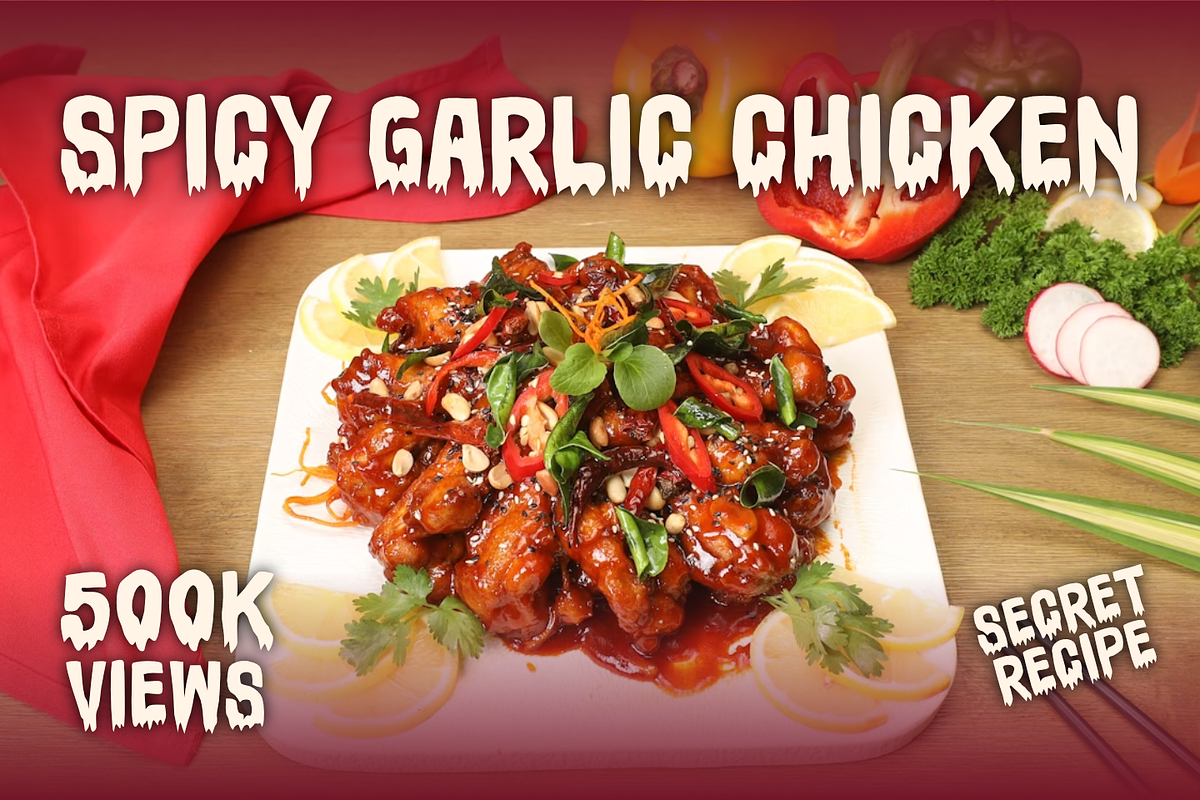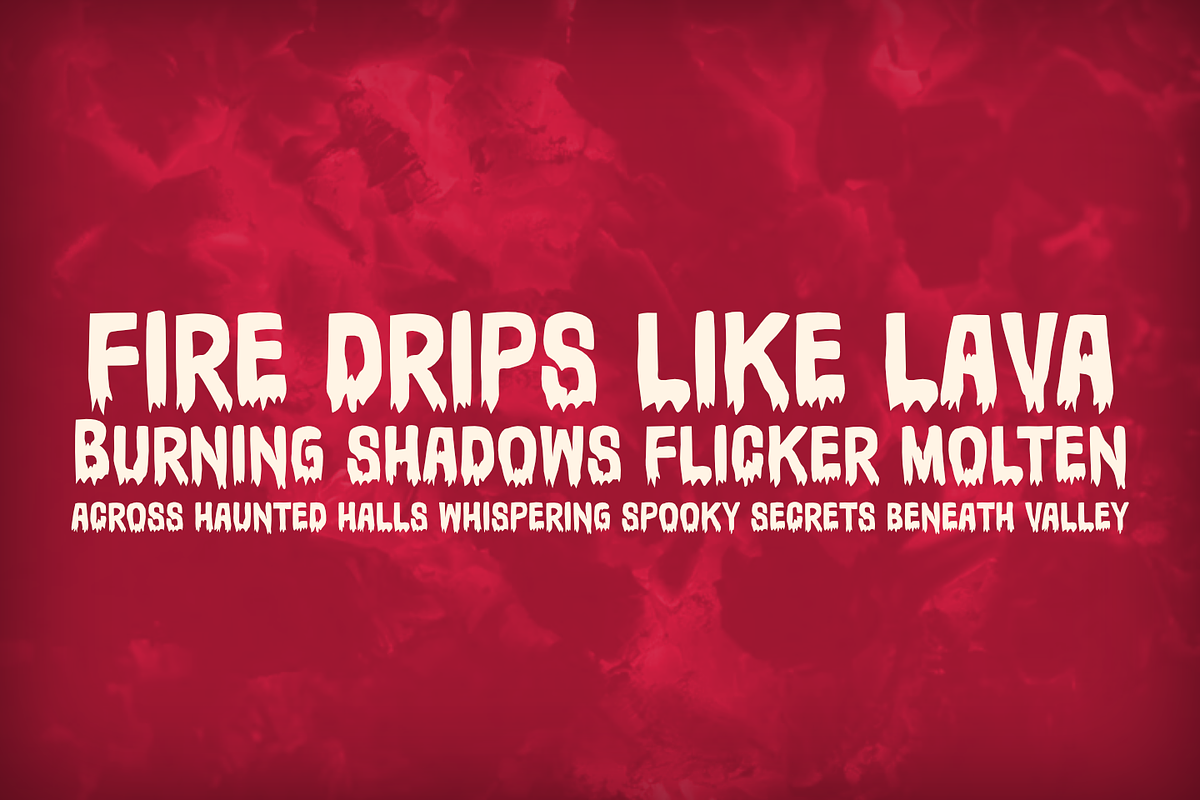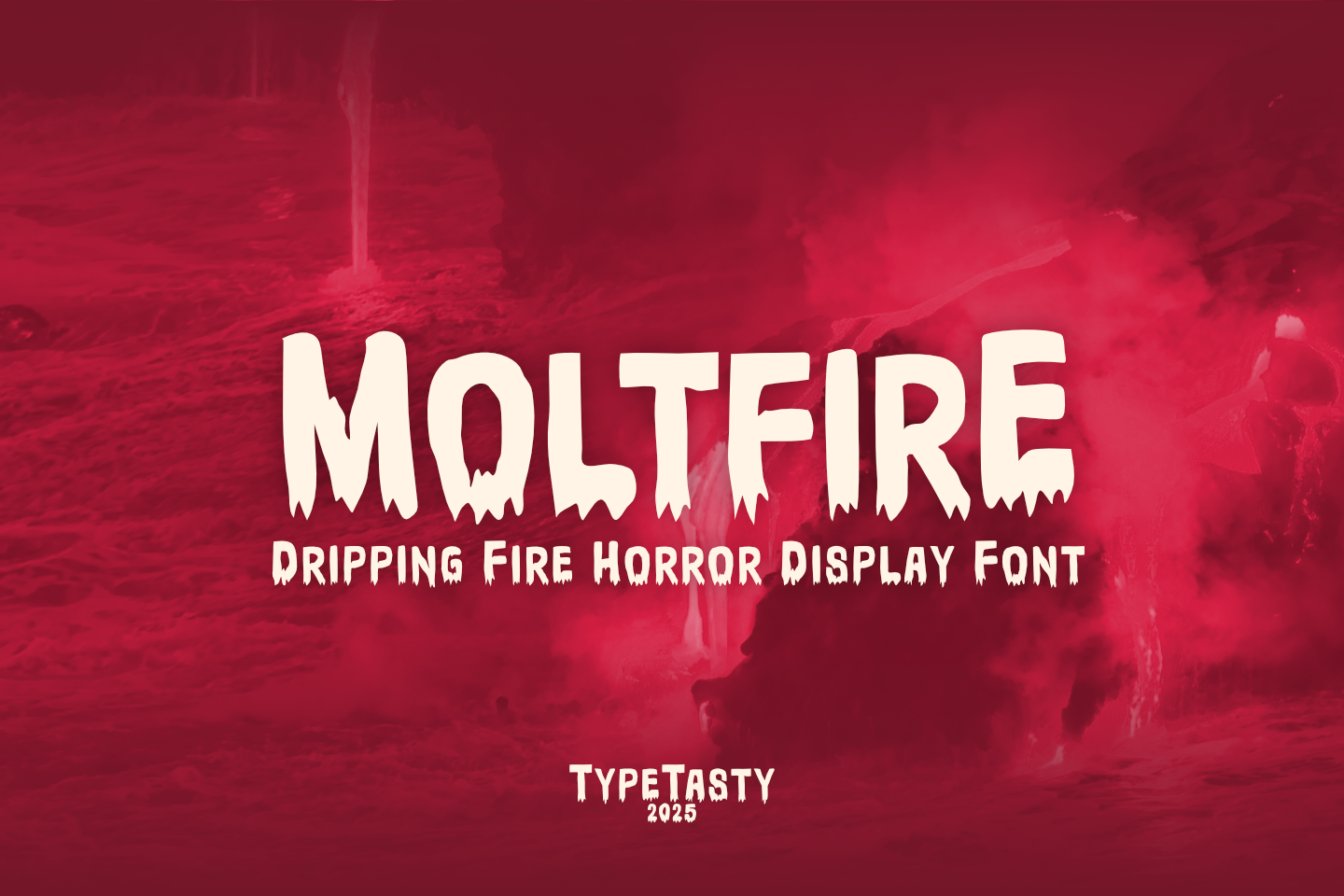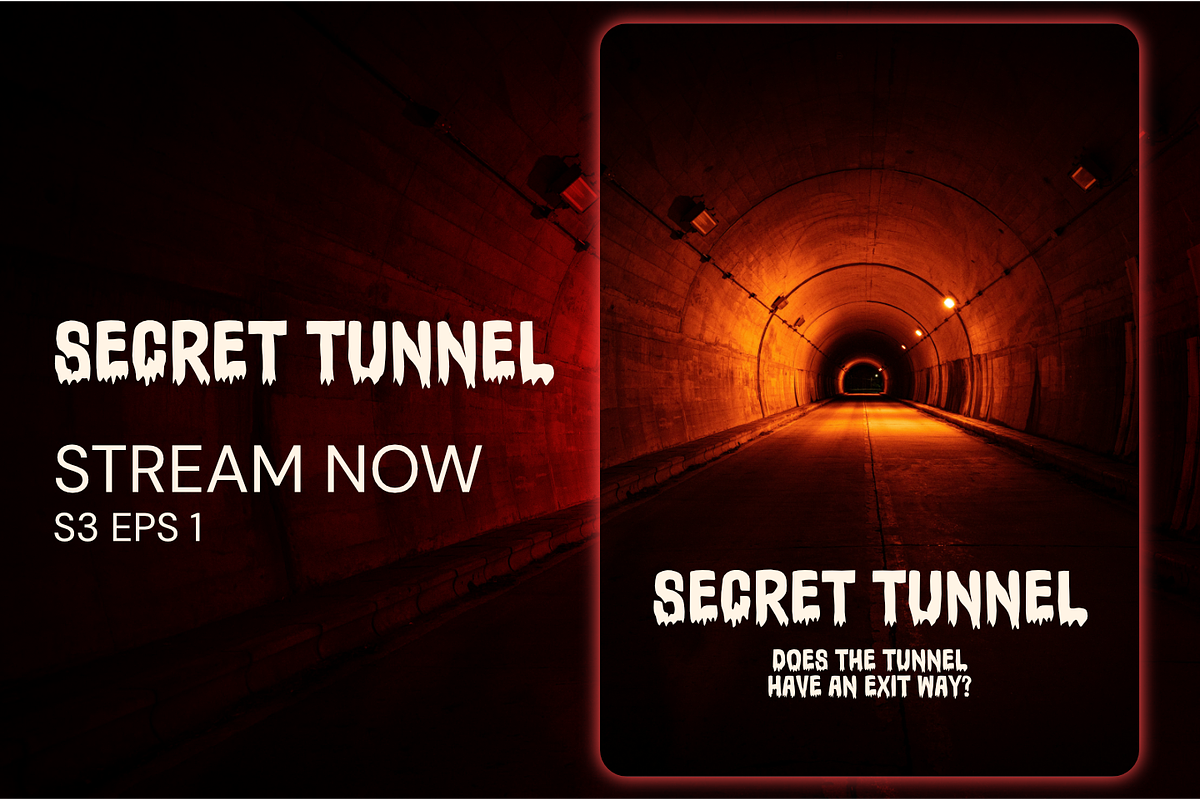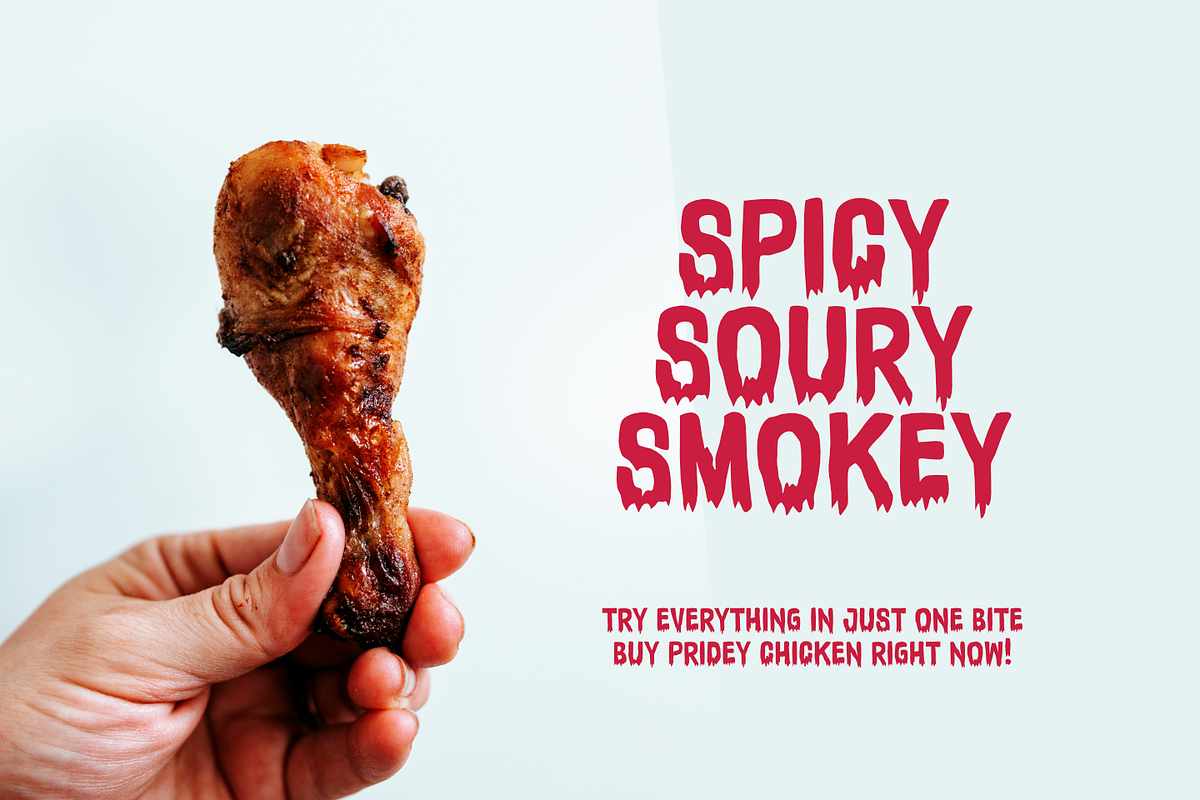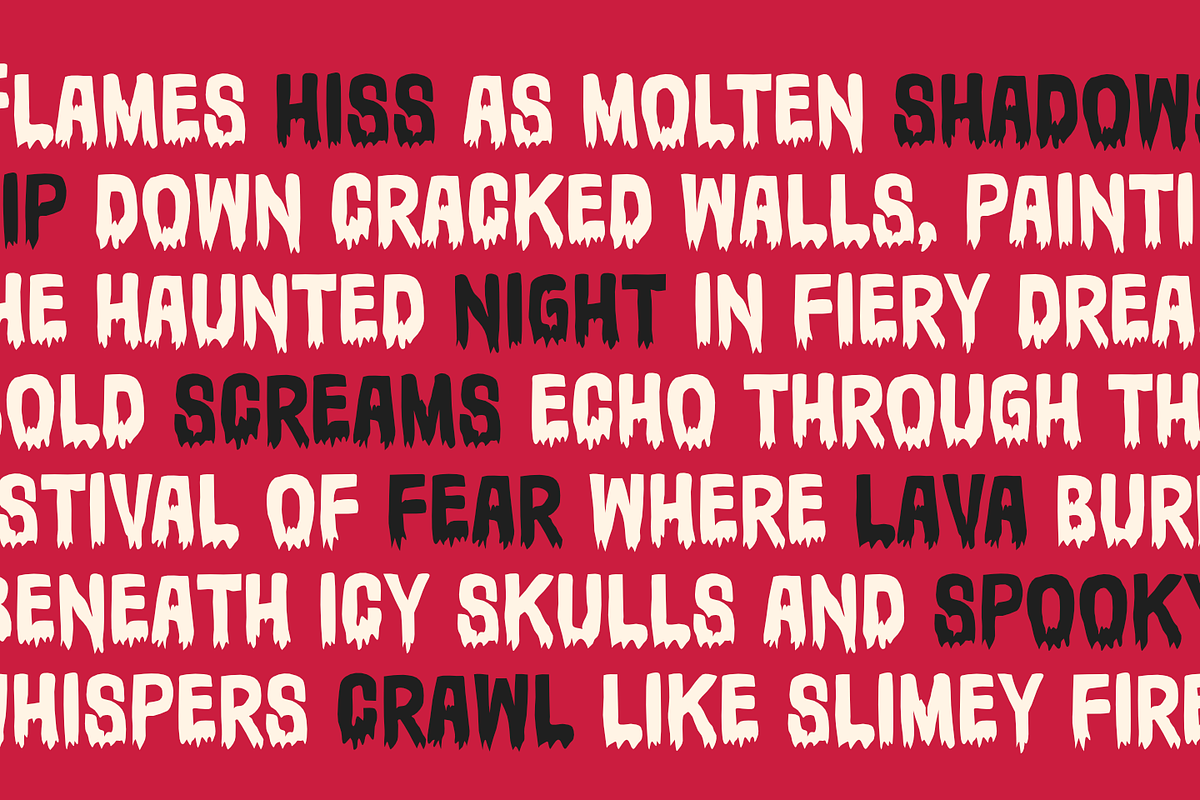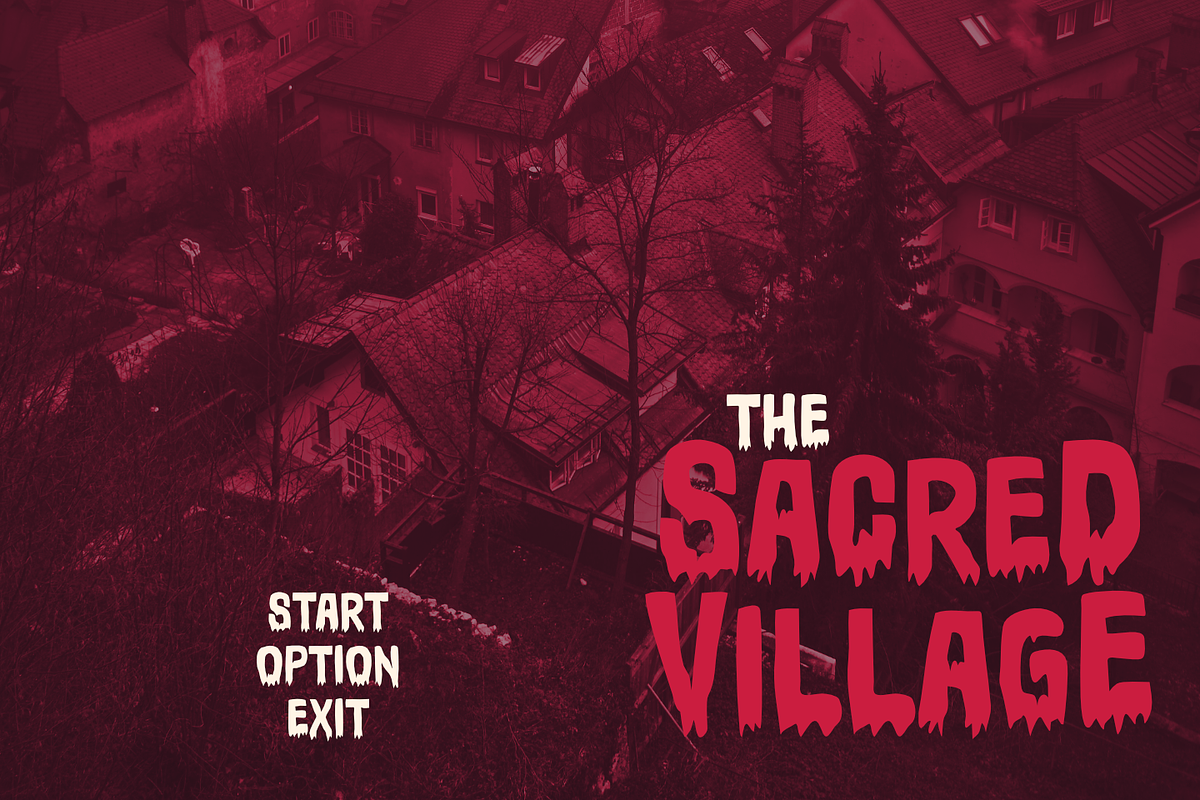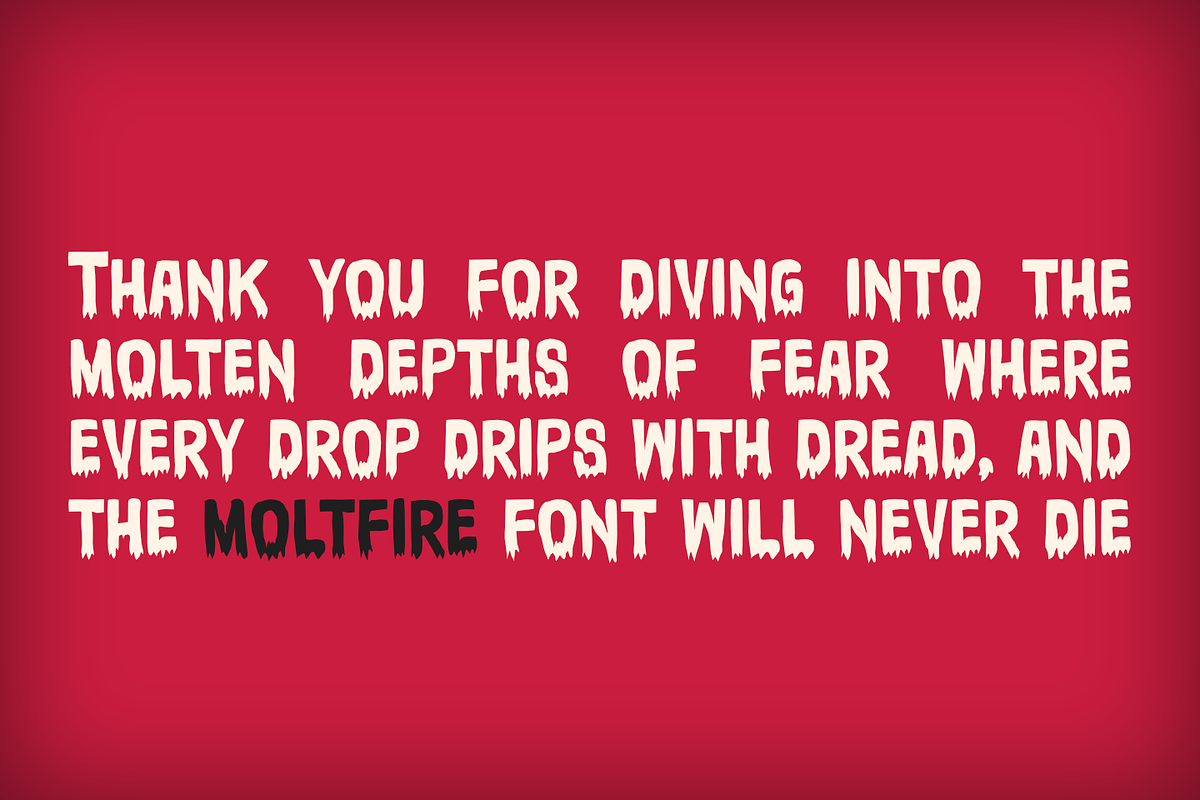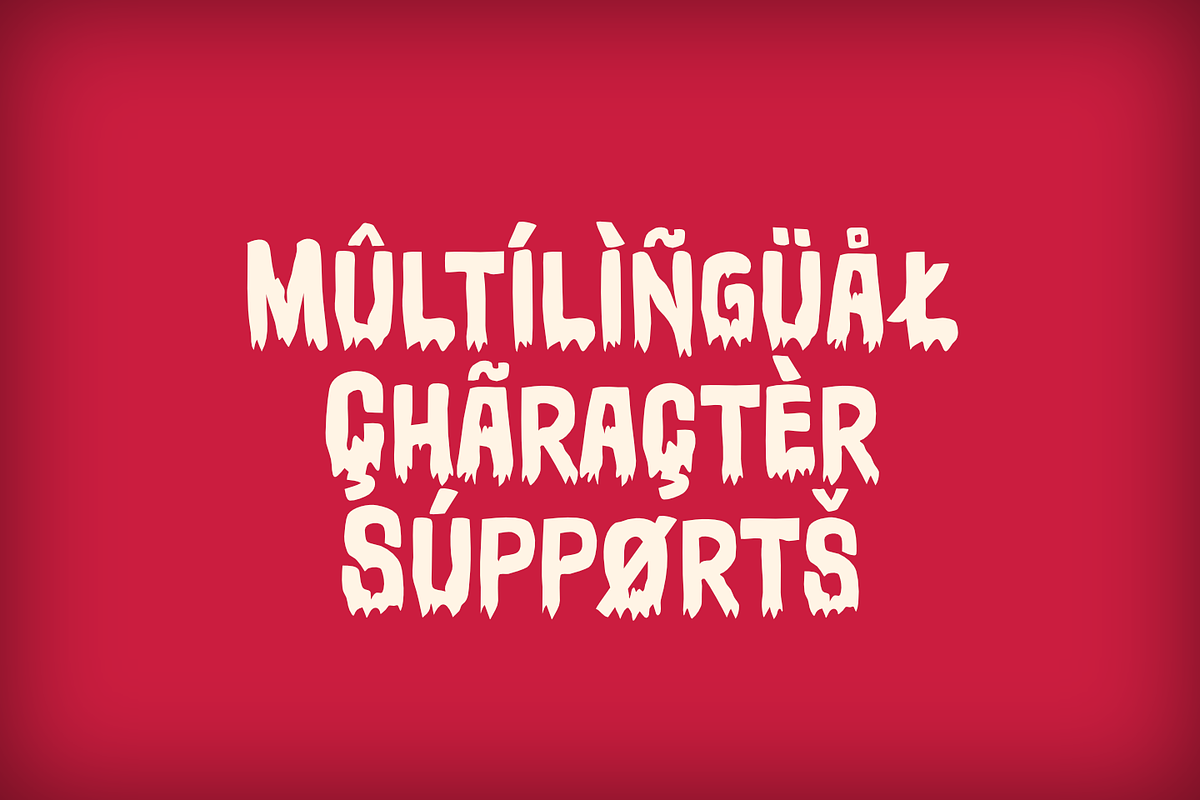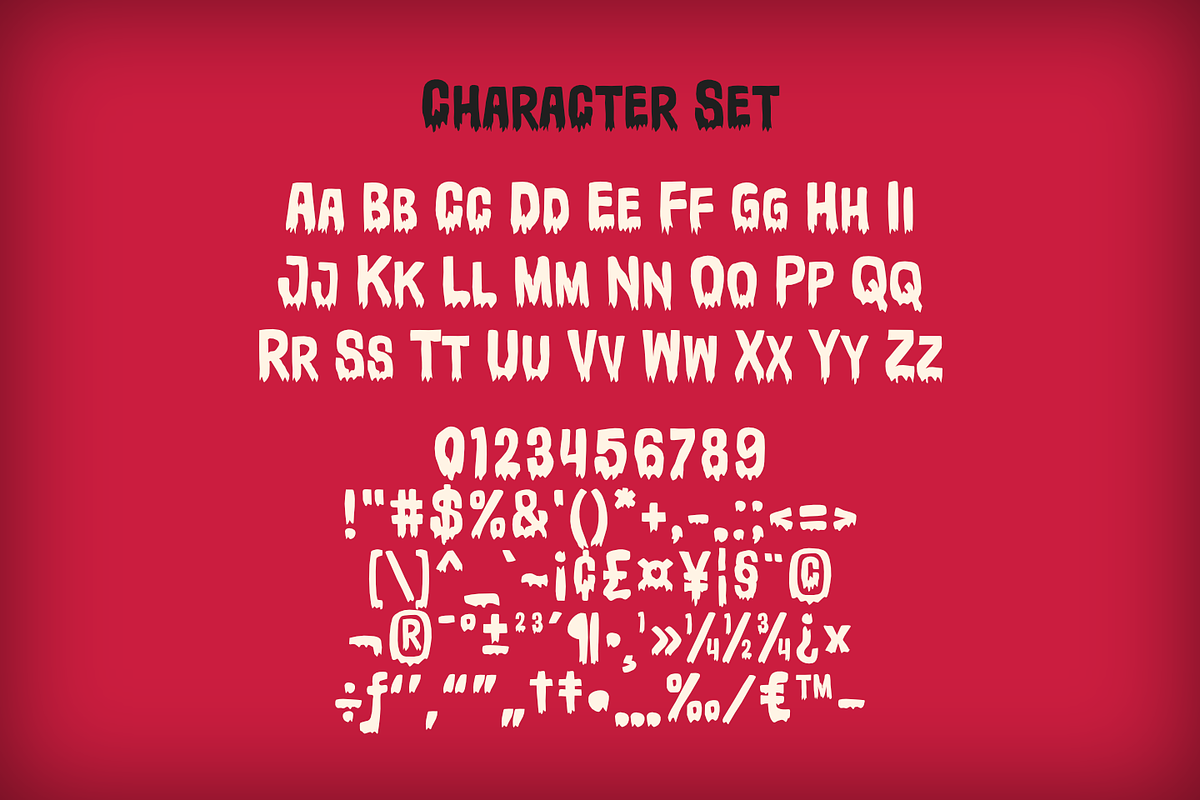
MOLTFIRE – Dripping Fire Horror Font
MOLTFIRE is a dripping fire horror font designed for bold and spooky projects. With its molten flame-inspired letters and creepy drips, it’s perfect for Halloween posters, horror branding, gaming covers, YouTube thumbnails, and edgy merchandise designs. Easy to use across print and digital, MOLTFIRE comes in OTF, TTF, and WOFF formats and is fully PUA encoded. If you’re looking for a scary, fiery, and attention-grabbing typeface, MOLTFIRE is your ultimate creative weapon.
MOLTFIRE is a bold dripping display font inspired by molten fire and horror aesthetics. Its playful yet spooky vibe makes it stand out in any design, bringing fiery energy with a creepy twist. The letterforms feature rounded bold strokes with dripping edges, creating a sense of movement and intensity.
Style & Vibe: Bold, creepy, playful, molten, horror-inspired
Intended Market: Halloween designs, gaming covers, spooky merch, event posters, YouTube graphics
Letterform Structure: Thick, hand-drawn sans-serif with dripping edges
Best Use Cases: Posters, branding, packaging, horror titles, festival graphics, apparel prints, digital covers
Looking for a font that instantly screams spooky fire and creepy fun? MOLTFIRE delivers the perfect balance of horror, playfulness, and energy, making your designs unforgettable during Halloween season, gaming launches, or eerie branding projects.
What makes MOLTFIRE essential for designers?
🔥 Molten Drip Aesthetic – Bold letters melting with fire-inspired drips.
🎃 Perfect for Halloween – Ideal for haunted posters, spooky invites, and seasonal graphics.
🎮 Gaming & Esports Ready – Create fierce titles and streaming thumbnails.
🖨️ Print & Digital Friendly – Works seamlessly for merchandise, apparel, and social media.
Bring your designs to life with MOLTFIRE — the dripping fire font that grabs attention instantly. Whether it’s Halloween, gaming, or edgy branding, this typeface adds fiery energy to every project. Don’t wait ignite your creativity today with MOLTFIRE!